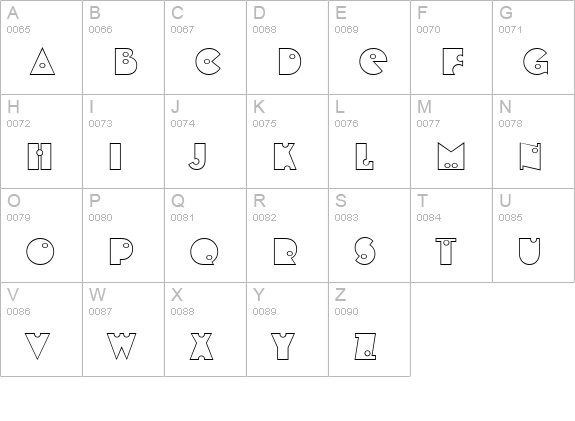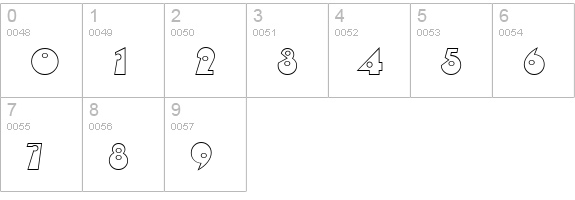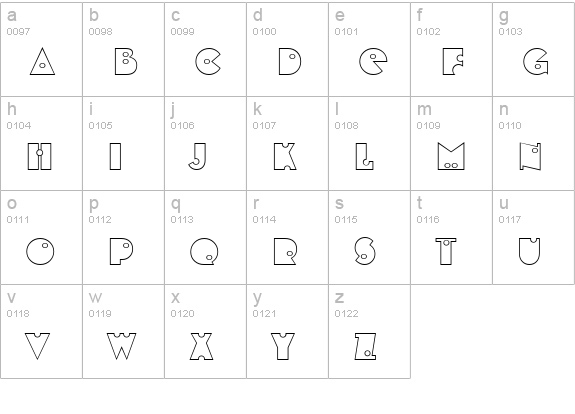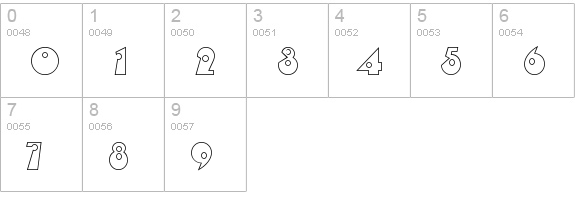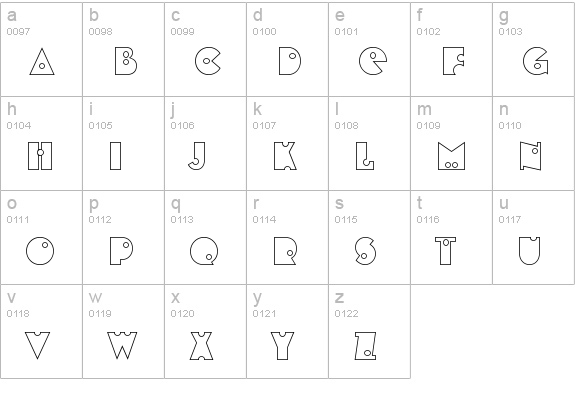
Shot Shell Open Caps font is a versatile and unique typeface that embodies the spirit of adventure and exploration. With its bold and distinctive letterforms, this font is perfect for adding a touch of ruggedness and authenticity to any design project. The Shot Shell Open Caps font is designed with meticulous attention to detail, resulting in a font that is both visually striking and highly readable. The carefully crafted uppercase letters are reminiscent of vintage typography, evoking a sense of nostalgia and timelessness. What sets Shot Shell Open Caps font apart is its versatility. Whether you're designing a poster for a rugged outdoor event, creating a vintage-inspired logo, or crafting a label for a craft beer, this font is up to the task. Its bold and commanding presence will ensure that your message is communicated with clarity and impact. One of the best things about Shot Shell Open Caps font is that it is freely available to download at FontsMarket.com. This means that you can easily incorporate this stunning typeface into your designs without breaking the bank. Whether you're a professional designer or a hobbyist, this font offers a high-quality and cost-effective solution for all your typographic needs. So, if you're looking to add a touch of ruggedness and authenticity to your design projects, look no further than Shot Shell Open Caps font. With its bold and distinctive letterforms, versatility, and the fact that it is freely available to download at FontsMarket.com, this font is a must-have for any designer seeking to make a bold statement.